These are no ordinary fonts…what you’ll get here are fun, unique, and quirky fonts that you can use to tell stories.
This Quirky Mega Fonts Bundle includes 71 fonts in 55 typefaces. Each and every font within this bundle is carefully created to be timeless, super versatile, and effortlessly cohesive. You use these fonts for any number of design projects; from clean and modern, to rough and organic looks.
This bundle includes all modern font styles such as signature, script, fun, vintage, retro, brush, monoline, display, feminine, handwriting, kids, and many more.
55 Font Families Included In This Quirky Fonts Bundle:
- Angellina Font
- Annamellia Font
- April Love Font
- Athenic Font
- Auttentic Font
- Bestvibes Font
- Betterlove Font
- Beyond Font
- Bohemia Font
- Boss Signature Font
- Bravingthon Font
- Butter Cheese Font
- Buttercake Font
- Candy Clause Font
- Catchme Font
- Cattalina Font
- Conelly Font
- Docherty Font
- Dreamelly Font
- Emilliya Font
- Gloryouss Font
- Glowing Font
- Hampshire Font
- Happy Snowy Font
- Heartline Font
- Hi Virginia Font
- Hollie Mally Font
- Hollyday Font
- Hugesnow Font
- Ice Valley Font
- Intensity Font
- Jennifer Font
- Love Tail Font
- Marchellia Font
- My Autumn Font
- My Homelly Font
- My Lovely Font
- Newtoon Font
- Olivia Font
- Ornalia Font
- Phillips Font
- Ressica Font
- Salsters Font
- Samantha Font
- Sherly Shane Font
- Sharpless Font
- Signtype Font
- Sigwald Font
- Simanice Font
- Slowly Font
- Somelove Font
- Swadery Font
- Valentiny Font
- Wellindside Font
- Yullietta Font
Preview Of What’s Inside This Mega Fonts Bundle!
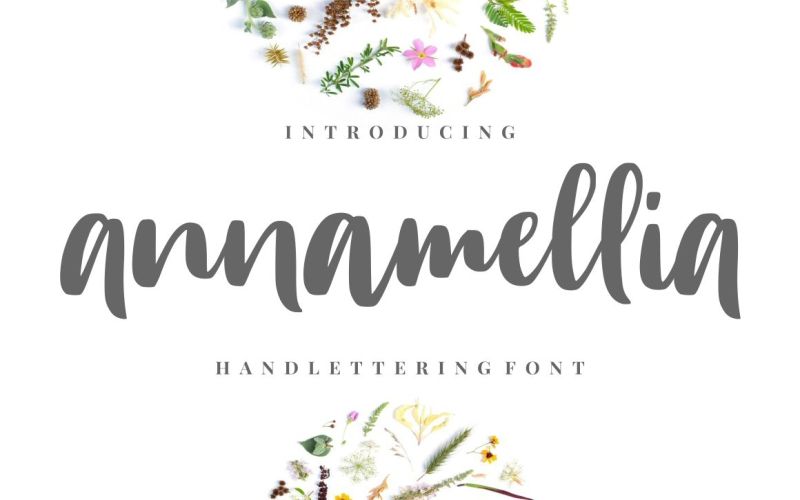
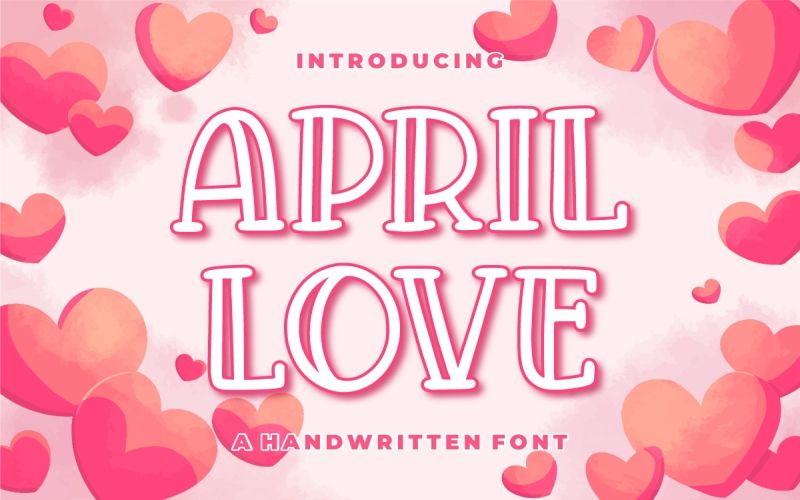
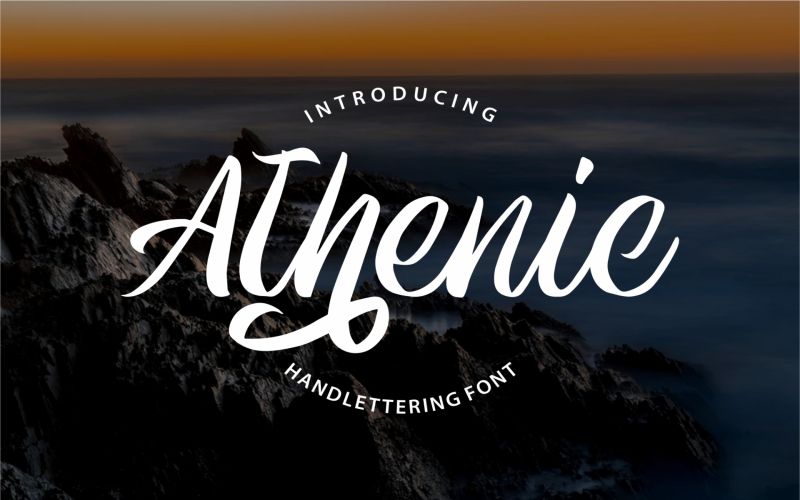
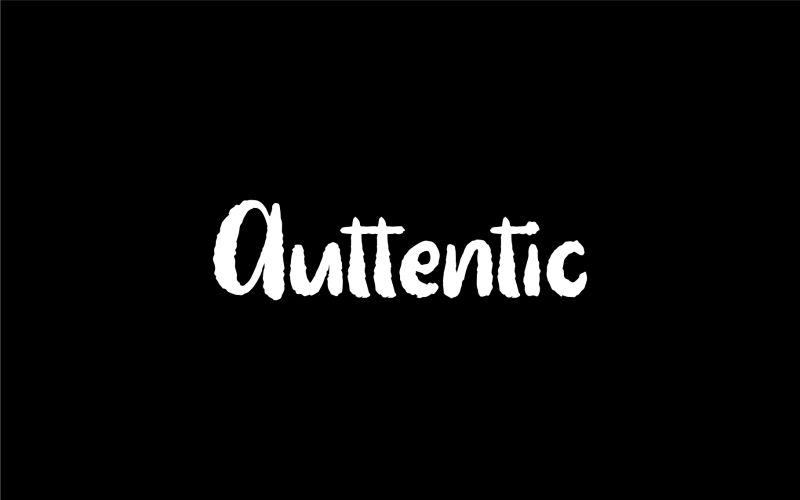
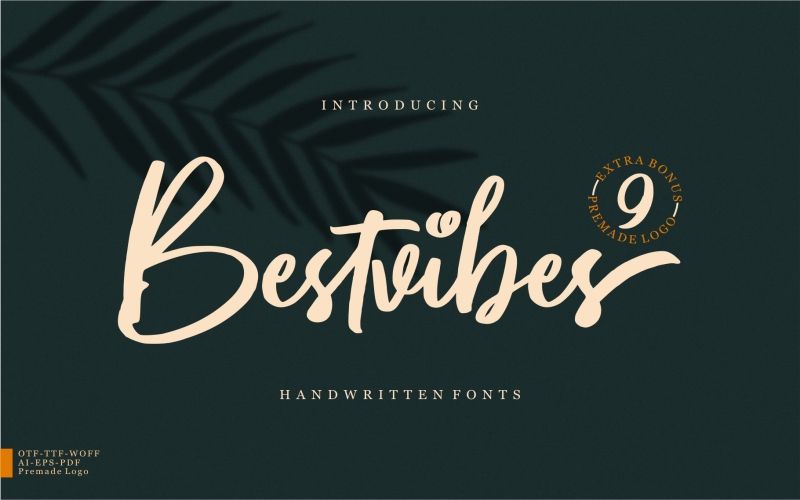
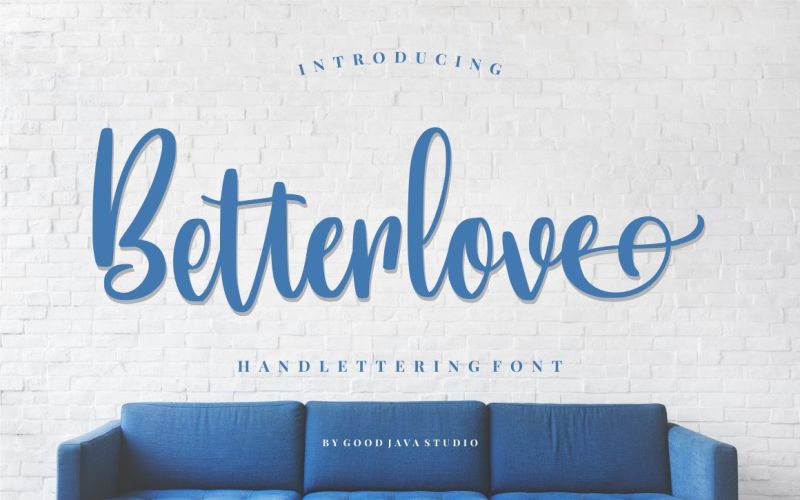
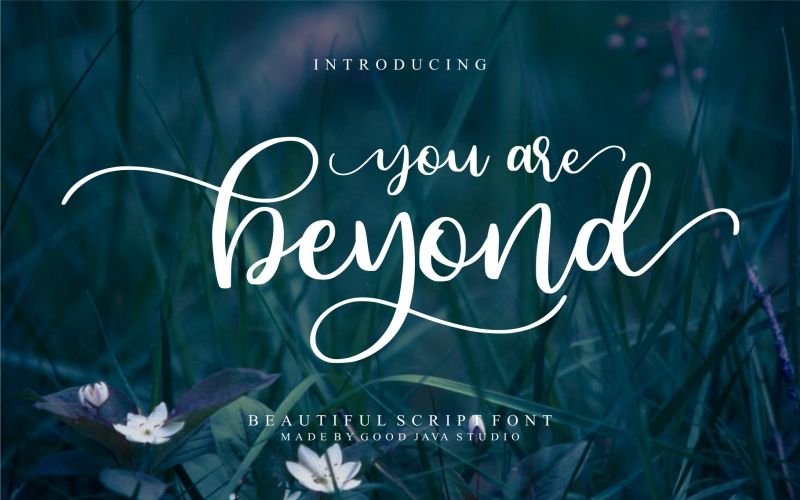
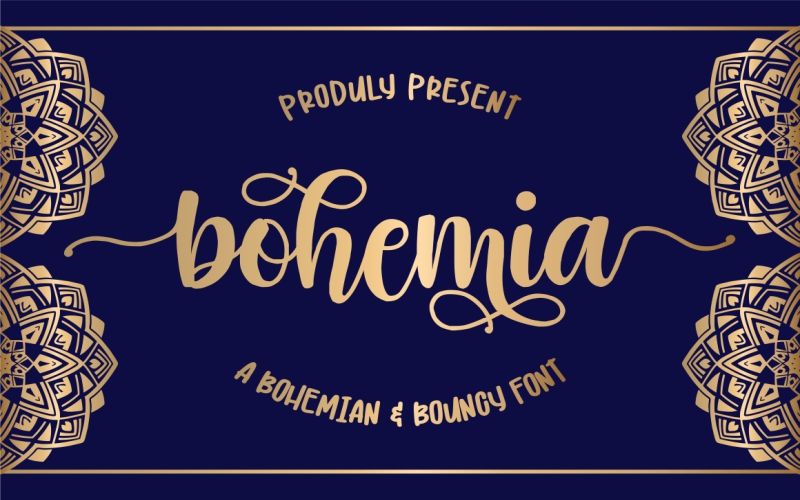
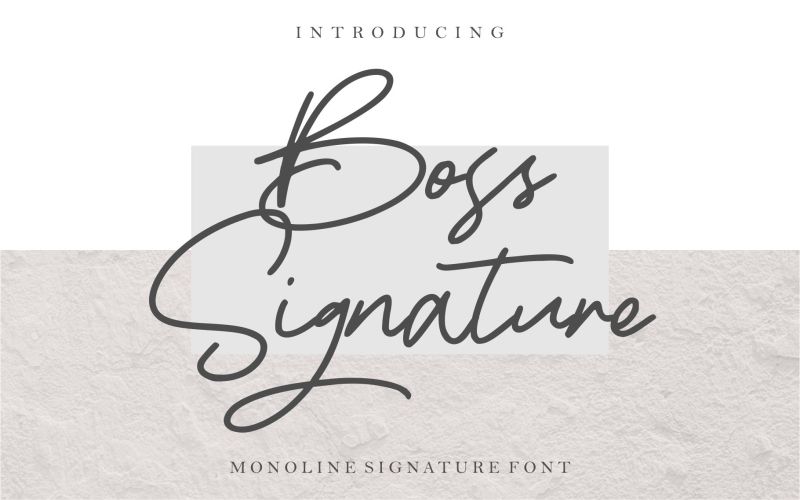
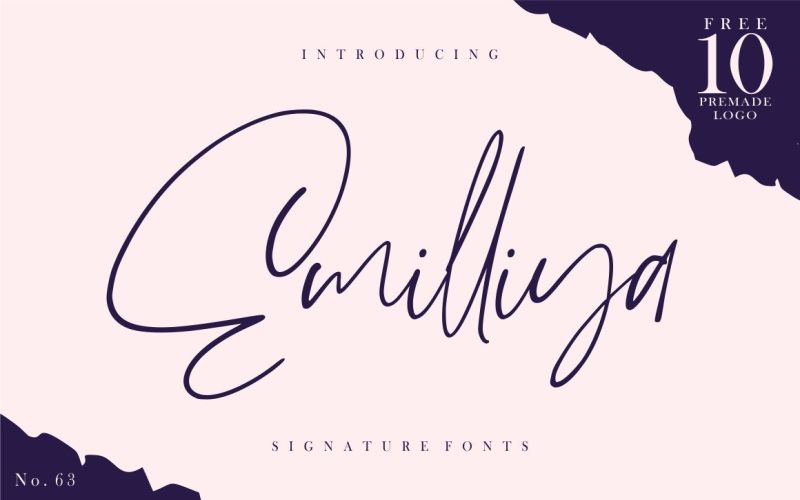
Highlights:
- This bundle includes 71 fonts in 55 typefaces
- Many fonts include multiple styles and Opentype features, ligatures, and alternates.